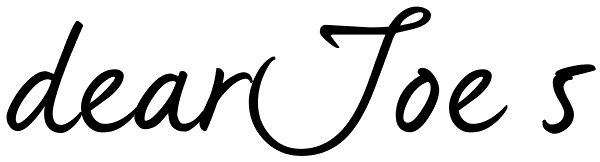
dearJoe 5
After months of sketching, drawing, tracing and kerning I am proud to present a new member of the dearJoe family: here’s dearJoe 5. This one was created by writing all characters with a thick HB pencil and then tracing them very tightly, which...